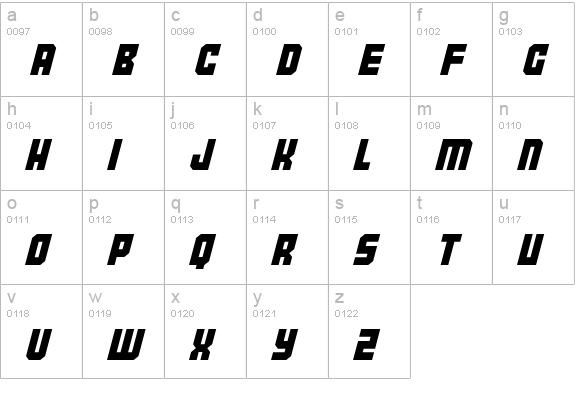
Tokyo 2097 Font Details
Tokyo 2097 is a free for personal use font in the Modern > Sci-Fi category, designed by Darrell Flood. It has been downloaded 187 times and is available for Windows, Mac and Linux.
Tokyo 2097 font is a futuristic and sleek typeface that embodies the essence of a technologically advanced metropolis. With its sharp lines and dynamic shapes, this font captures the energy and innovation of Tokyo in the year 2097. Whether you are designing a poster, branding a product, or creating digital art, Tokyo 2097 font will add a modern touch to your projects.